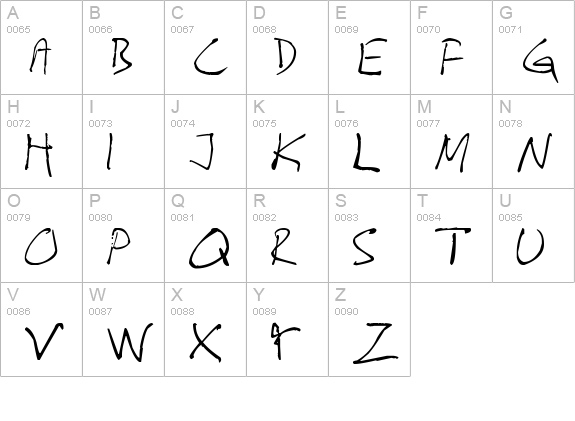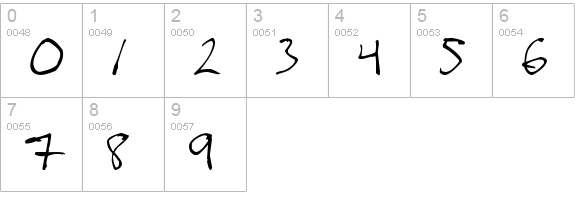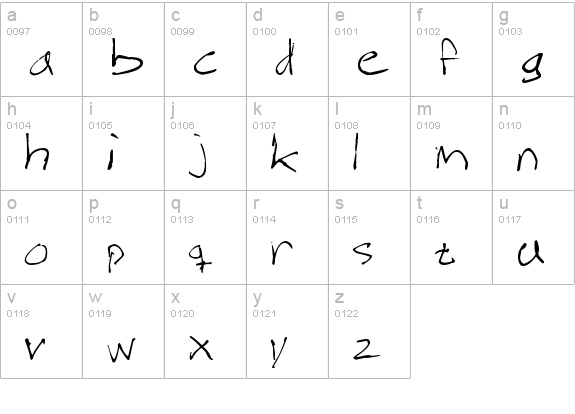
Magnus Handwriting Font Details
Introducing Magnus Handwriting, a charming and versatile font that adds a touch of elegance and personality to your designs. Crafted with meticulous attention to detail, this font captures the essence of beautiful handwriting with its effortless strokes and graceful curves. Magnus Handwriting is the perfect choice for a wide range of projects, from invitations and greeting cards to logos and branding materials. Its timeless appeal and legibility make it suitable for both print and digital applications, ensuring that your message will be conveyed with clarity and style. What sets Magnus Handwriting apart is not only its stunning aesthetics but also its accessibility. We believe that creativity should be free and accessible to all, which is why Magnus Handwriting is freely available to download at FontsMarket.com. Whether you're a professional designer or a hobbyist, you can now enjoy the beauty of this font without any limitations. With its extensive character set and multiple variants, Magnus Handwriting offers endless possibilities for customization and personalization. Whether you prefer a clean and classic style or a more whimsical and playful look, this font can adapt to your creative vision effortlessly. Embrace the art of handwriting with Magnus Handwriting and elevate your designs to new heights. Let your words flow gracefully and leave a lasting impression with this captivating font. Download Magnus Handwriting for free at FontsMarket.com and unlock a world of creative possibilities.